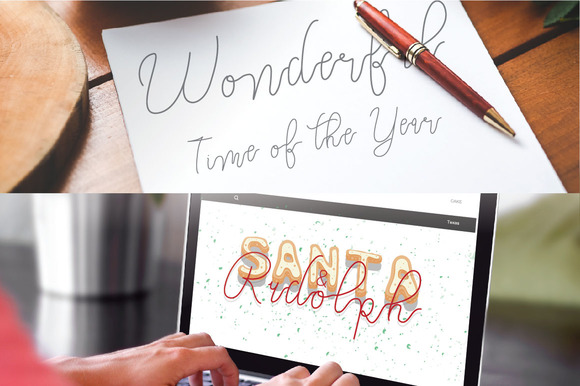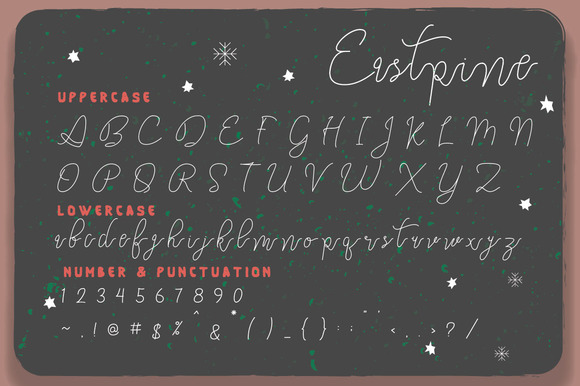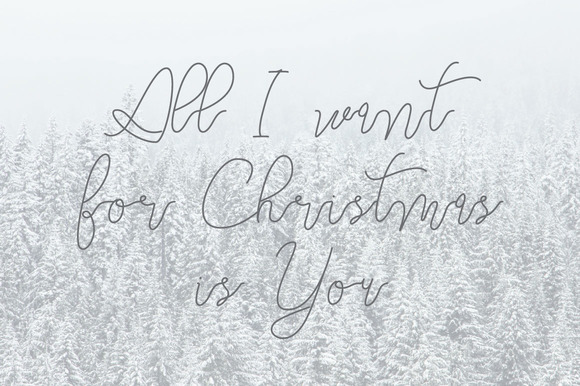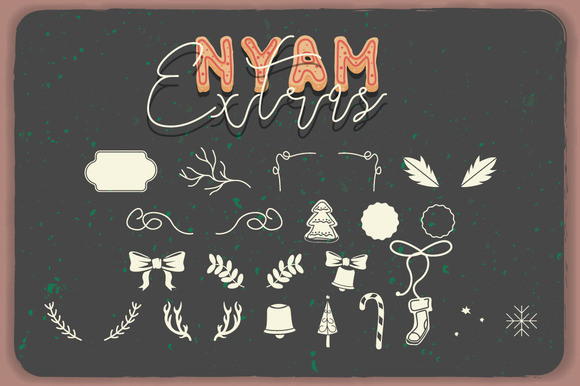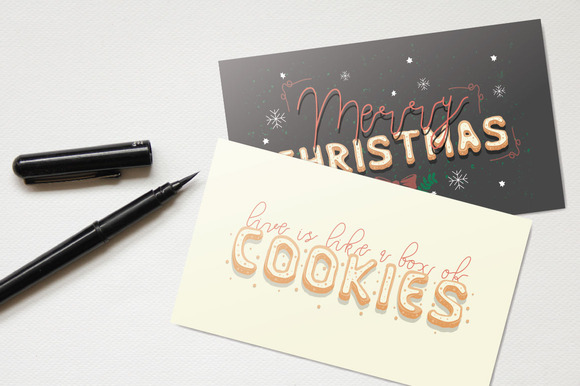
Introduction to NYAM & Eastpine Font
As a designer, there’s nothing quite like the feeling of getting creative with a new project. You’re sitting at your desk, surrounded by papers, pencils, and screens, and suddenly, the idea hits you. You want to create something special for the holiday season – a Christmas card, perhaps, or a set of ornaments that will make your loved ones smile. And that’s where the NYAM & Eastpine Font comes in – a game-changing design resource that will elevate your creative project to new heights.
This high-quality font family is more than just a pretty face; it’s a complete design solution that includes 7 unique fonts, each one carefully crafted to bring a touch of festive magic to your work. With its transparent background and free download option, you can trust that you’re getting a top-notch resource that will save you time and effort in the long run.
Key Features of NYAM & Eastpine Font
- High-quality, unique font design for creative projects and design resources
- Transparent background, making it ideal for use in digital design and graphic projects
- Comes in a range of sizes, from 16px to 48px, to suit various design needs
- Designed with a clean and modern aesthetic, perfect for contemporary design projects
- Download includes a comprehensive character map, featuring a wide range of glyphs and symbols
Honest Review: NYAM & Eastpine Font
I recently had the chance to use the NYAM & Eastpine Font for a creative project, and I was thoroughly impressed with the results. The font has a unique and elegant design that adds a touch of sophistication to any text.
Here are some things that work well with the NYAM & Eastpine Font:
- High-quality design: The font is expertly crafted with attention to detail, making it perfect for designers who demand the best.
- Transparent background: This feature allows for seamless integration with any design element, giving you complete creative control.
- Limited font sizes: The font may not be suitable for very large or very small text sizes, which could be a problem for certain design applications.
- No bold or italic styles: While the font is elegant, it’s limited to a single style, which may not be ideal for certain design projects.
Overall, I’m extremely impressed with the NYAM & Eastpine Font. Its high quality and elegant design make it an excellent addition to any designer’s toolkit. While it may have a few limitations, it’s a great resource for designers who are looking for a free and high-quality font.
Tips for Getting the Most Out of NYAM & Eastpine Font
To get the most out of this font, use it in combination with other design elements, such as images and graphics, to create a visually appealing design. Also, experiment with different font sizes and styles to add depth and interest to your design.
The NYAM & Eastpine Font is perfect for a variety of creative projects, including logos, business cards, brochures, and website designs. Its elegant and sophisticated design makes it ideal for high-end design projects, while its free download option makes it accessible to designers of all levels.